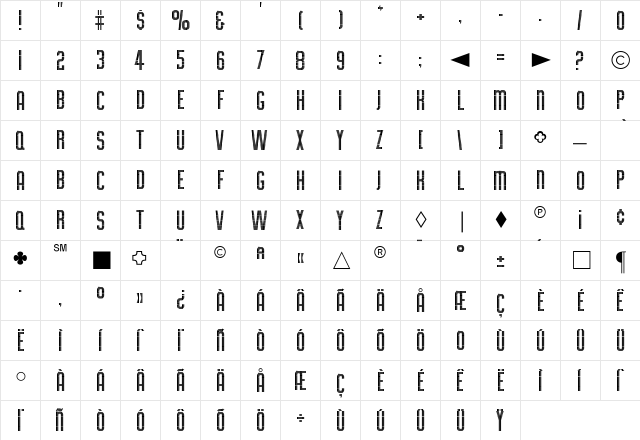
CgSectionBdCd Medium
Design Context for CgSectionBdCd Typeface
CgSectionBdCd is a composed and adaptable typeface that performs quietly and consistently across a wide range of design contexts.